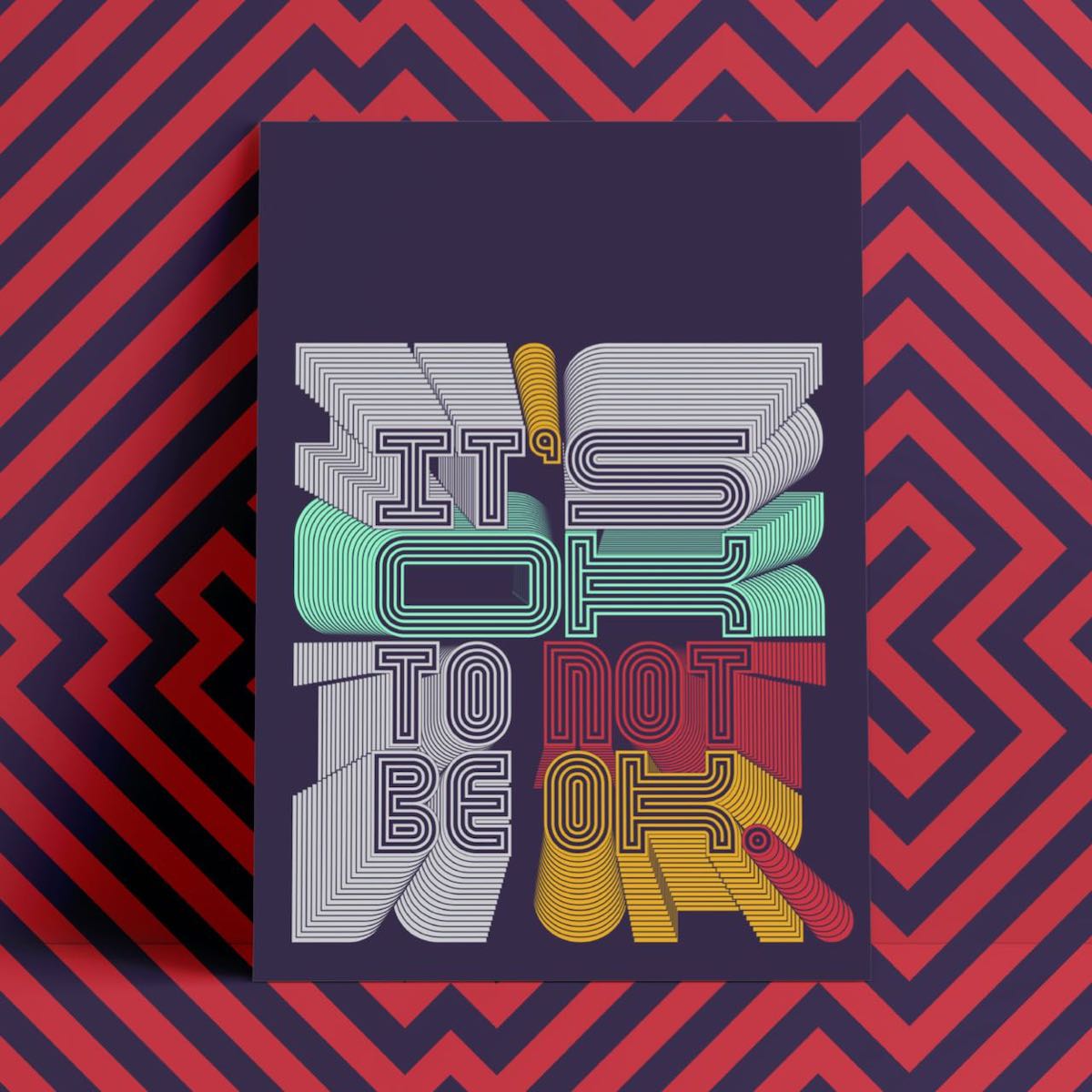
Troptical
A Modular, Hypnotic Display Typeface by in-House International
Troptical is a hypnotic, energetic multilinear typeface that’s all rhythm and movement. Featuring concentric lines and angular construction, Troptical borrows from the dazzling illusions of op-art and the clever geometry of Latin American design, plus a hint of 8-bit video game vibes, just for fun. The result is a new take on the multilinear display genre, with fully self-contained glyphs and no open terminals.
Beneath all its art-party razzle dazzle, this typeface is really practical to use. Troptical’s modular, building-block characters are standard-sized and made for stacking. The typeface features 45 unique weights across regular, rounded and square styles. And glyphs include eñes and lowercase diacritics to make it easy to use all that kinetic opticality en Español.
Troptical
Foundry: In-House International
Designer: Alexander Wright, In-House International
Release: October 2020
Weights: Light, Regular, Bold
Widths: 10, 15, 20, 25, 30
Styles: Regular, Rounded, Square